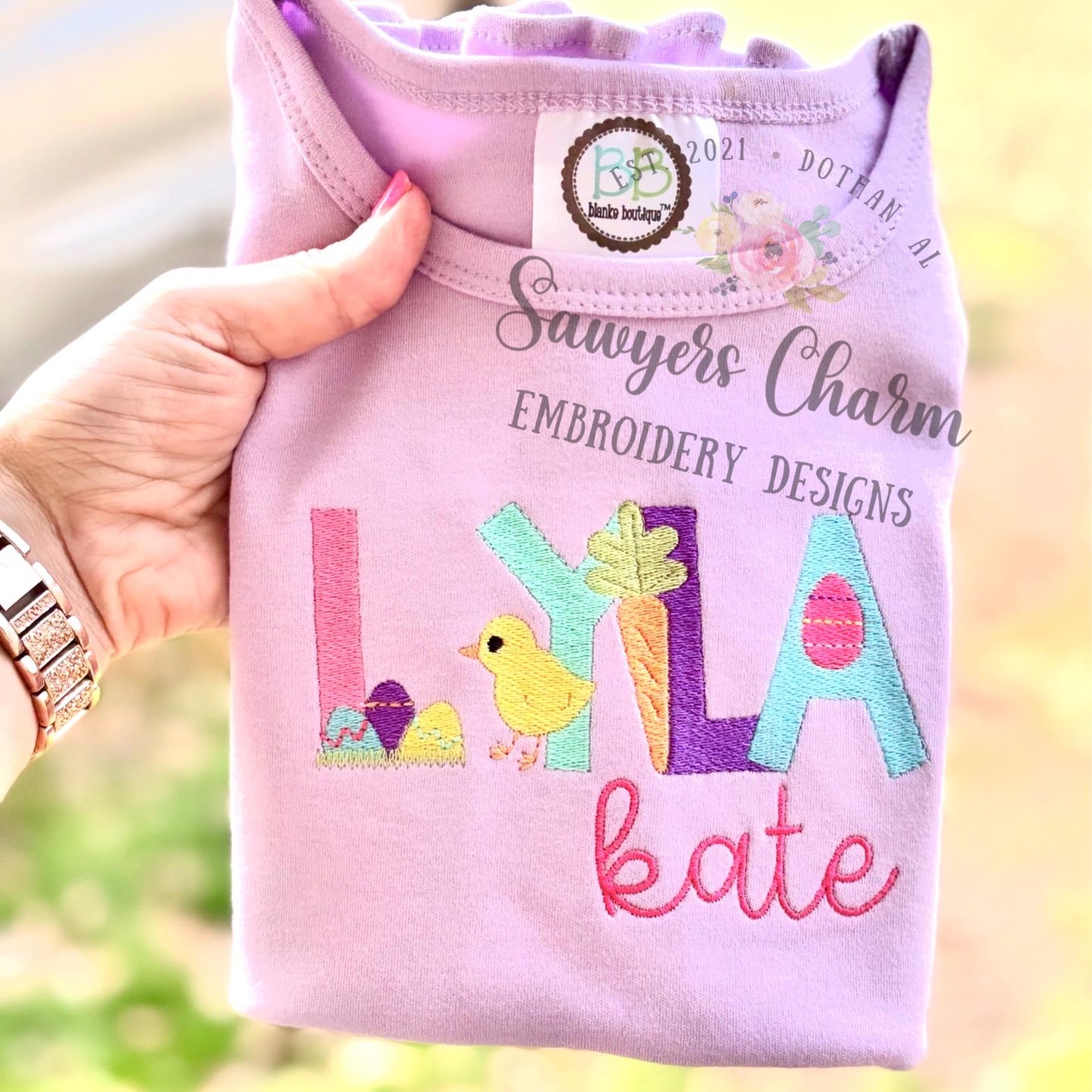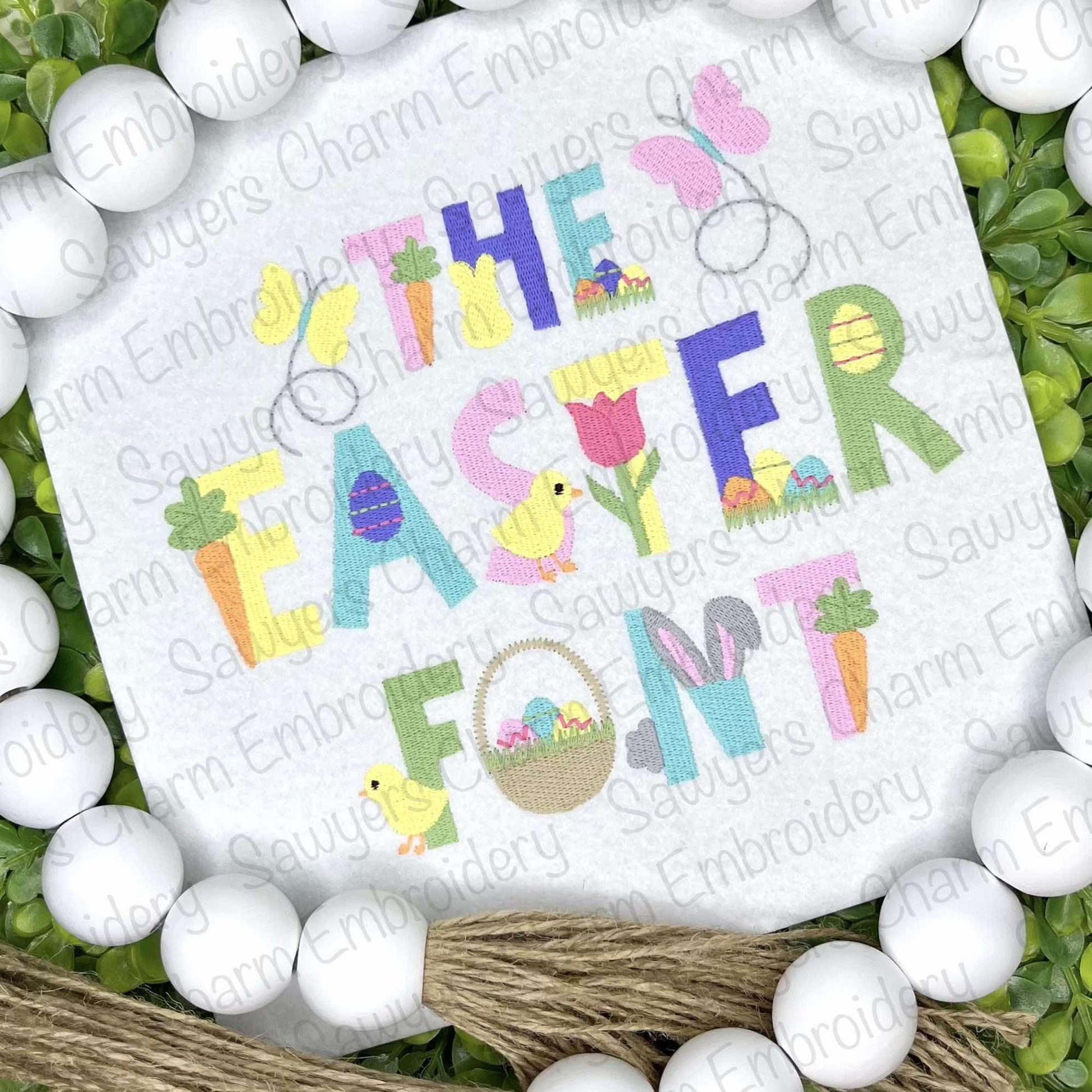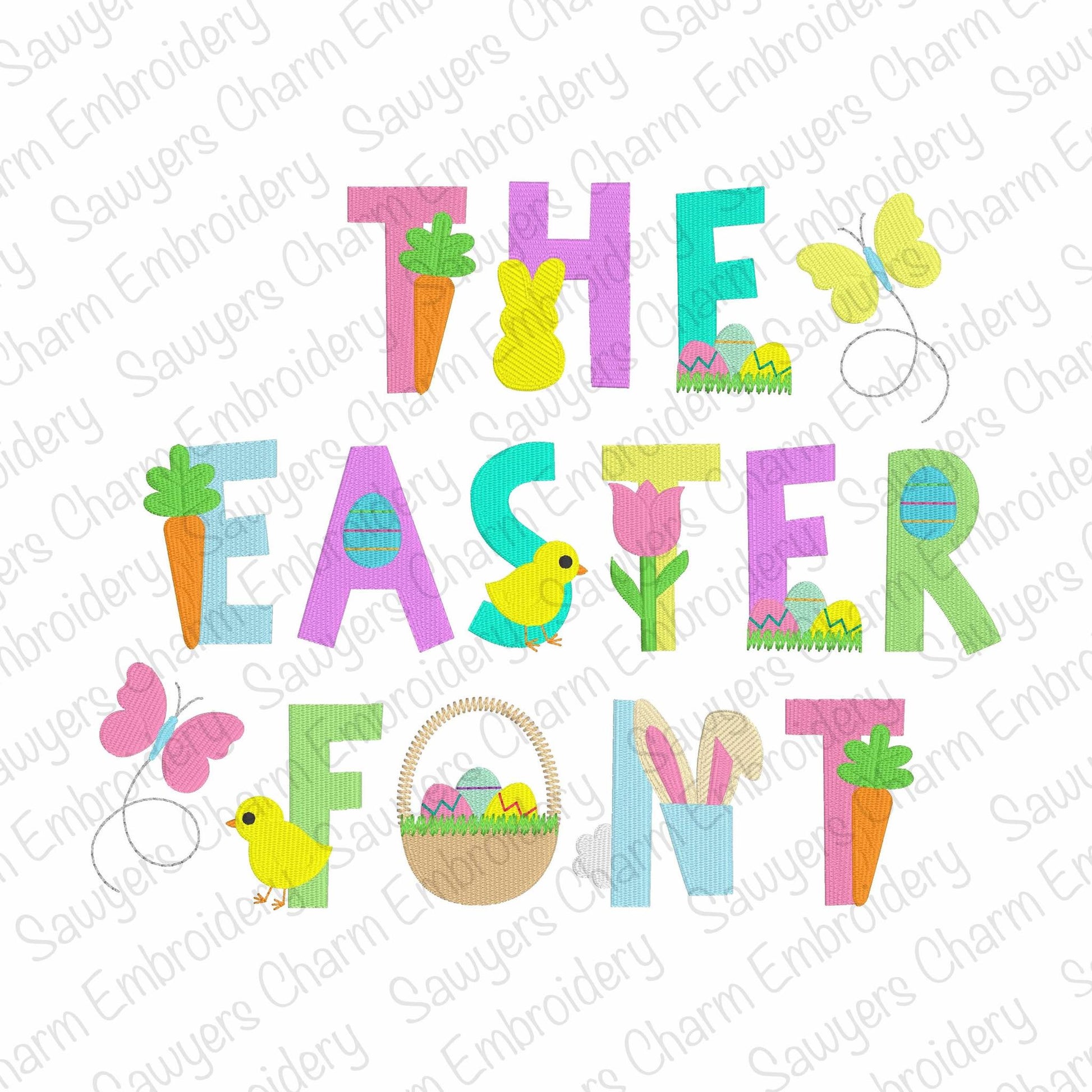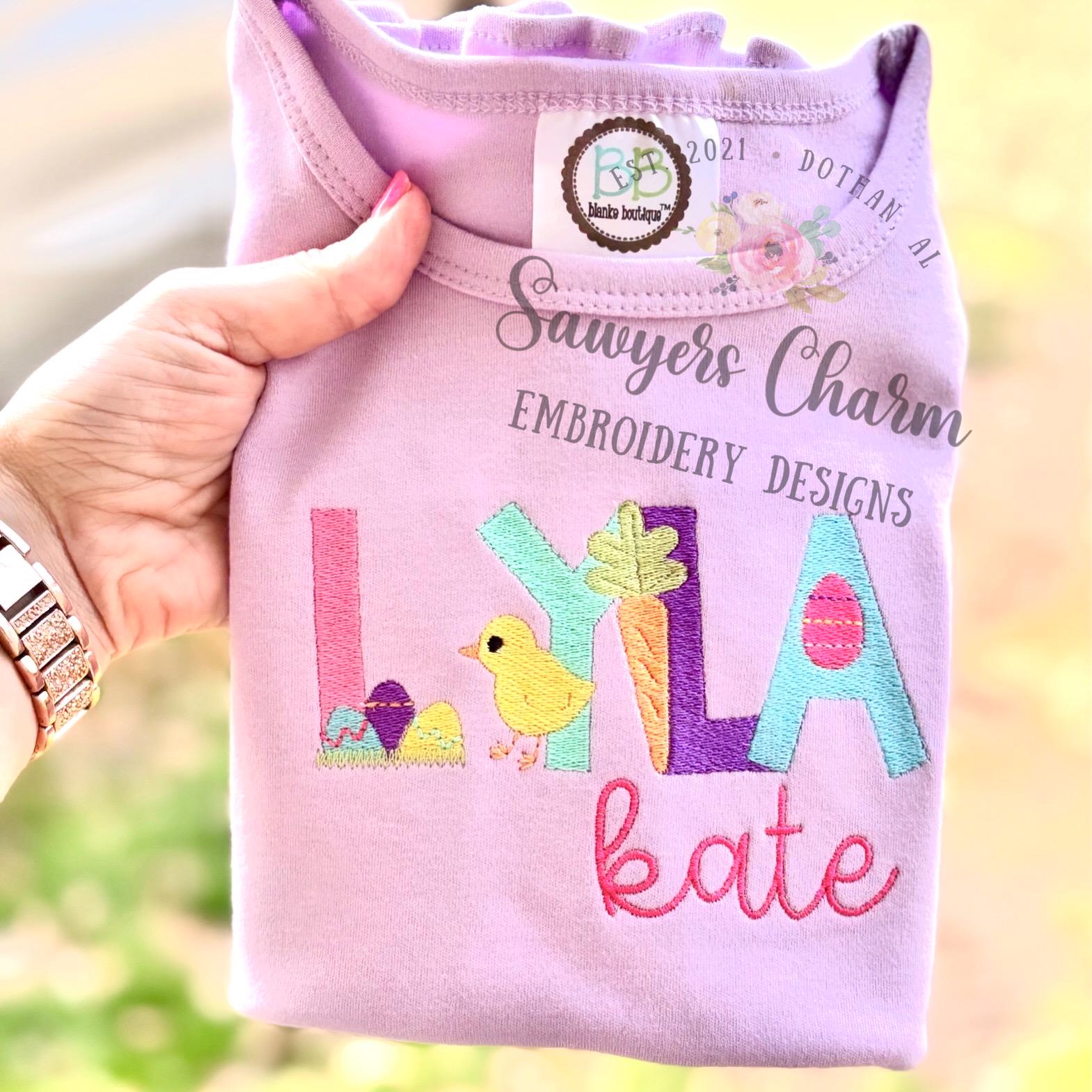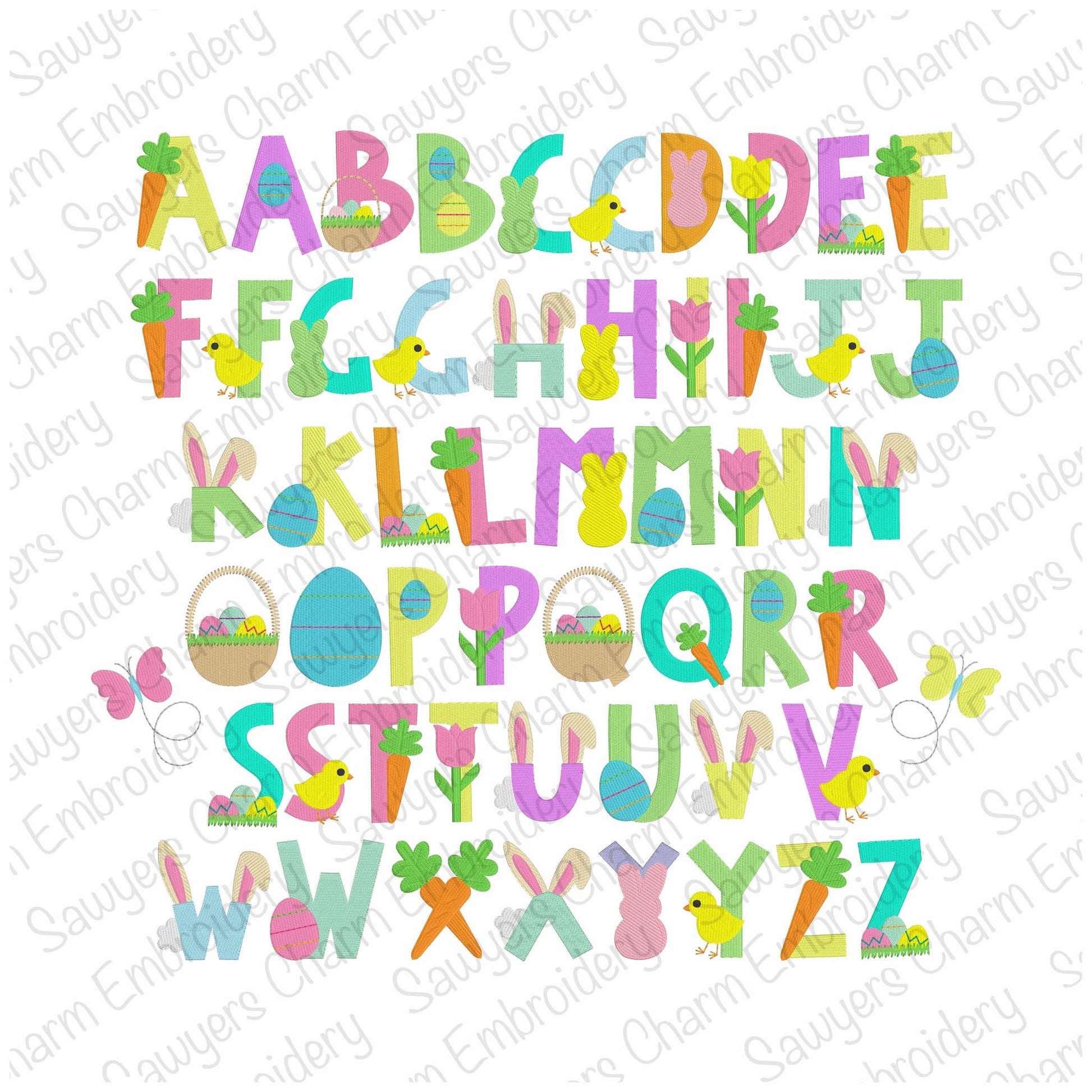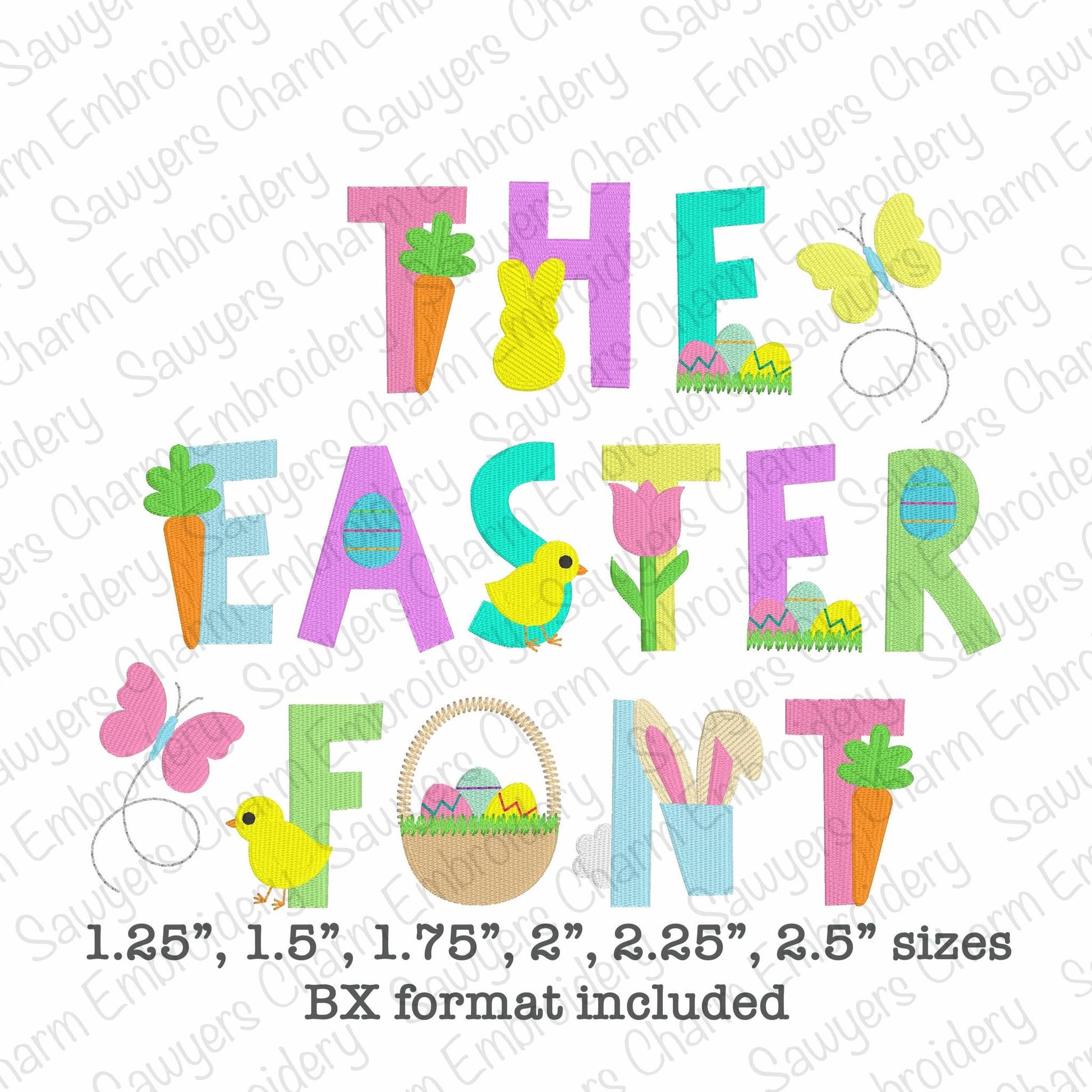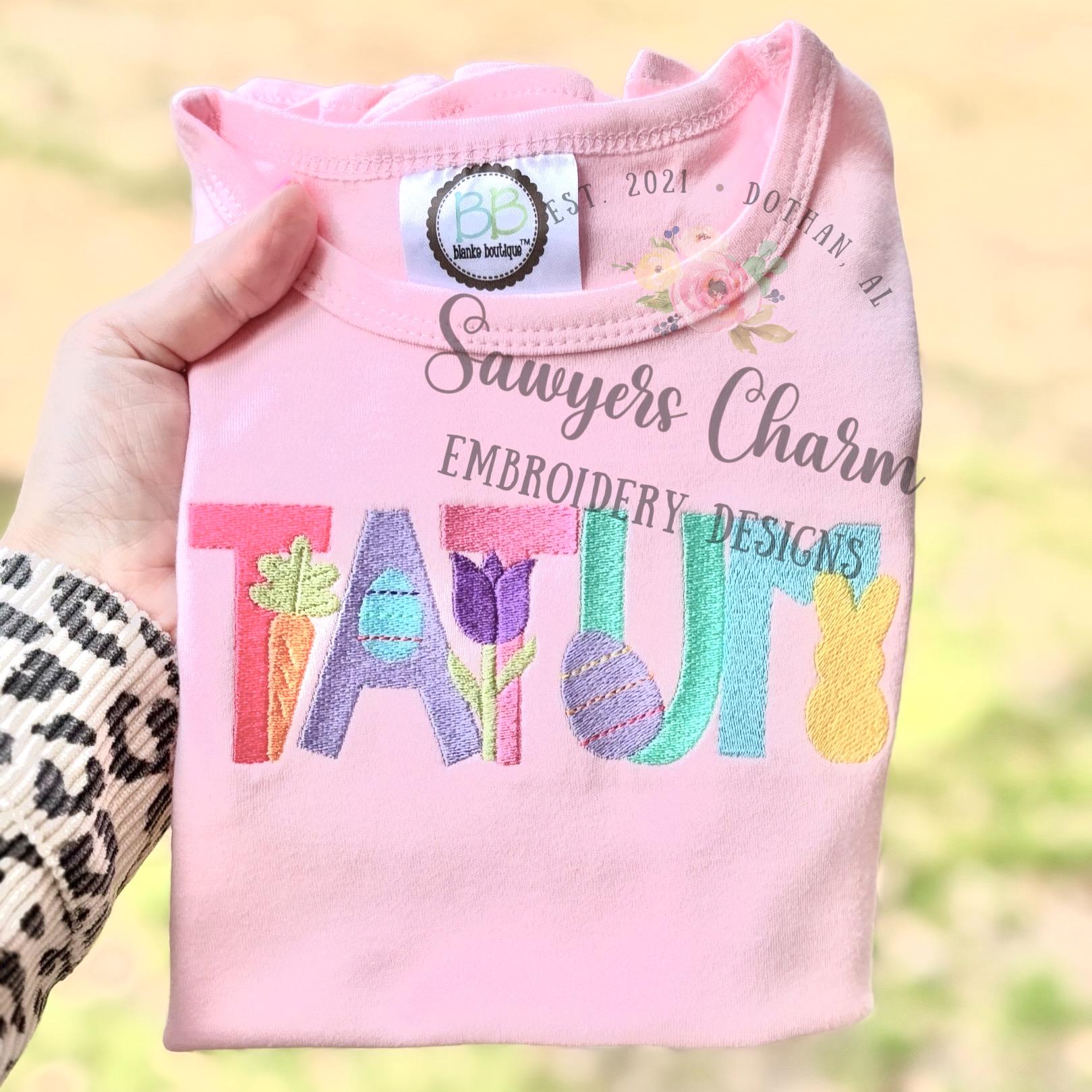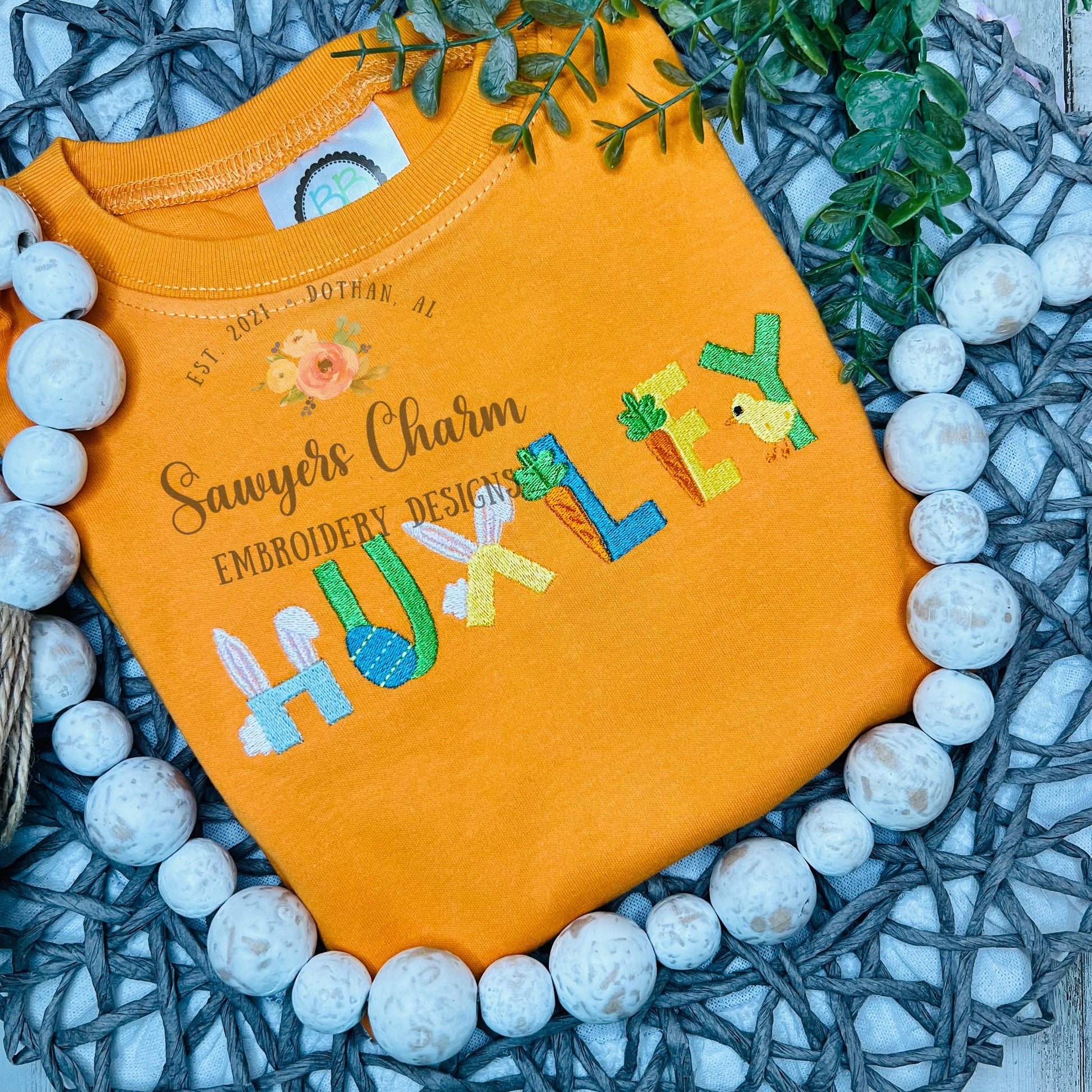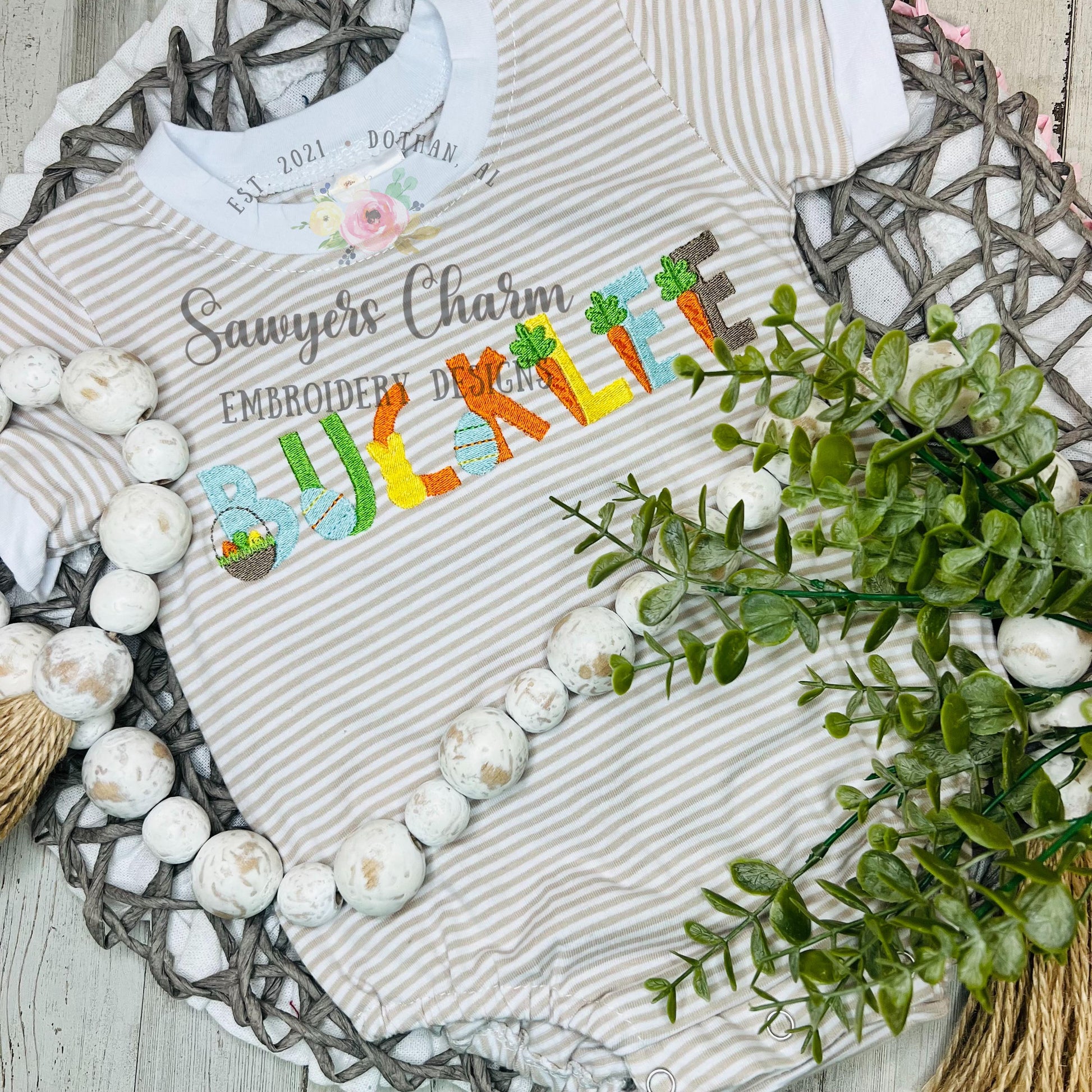
Easter/spring machine embroidery font fill stitch letters, chick, butterfly, carrot, bunny rabbit, eggs & basket, tulip flowers, BX included
This embroidery font comes in several sizes....1.25", 1.5", 1.75", 2", 2.25", and 2.5". This is a fill stitch font with capital letters. Each letter comes with two choices, each having a different design. Some letters have chicks, some have eggs, some have an Easter basket, some tulips, some carrots, and some bunny ears making this the perfect font for Easter and spring! There is also a butterfly that can be added to the font. This will work for boys and girls since there are so many options and by changing the colors.
PLEASE NOTE: These letters cannot be used without the little figures that are attached to the letters (carrots, bunny ears, etc). The portion of the letter behind the figure is missing so that the design is not so dense in that area. They can only be stitched with the figures. Please do not purchase if you are only wanting to use the letters without the figures. No refunds will be given if you do. Thank you for understanding!